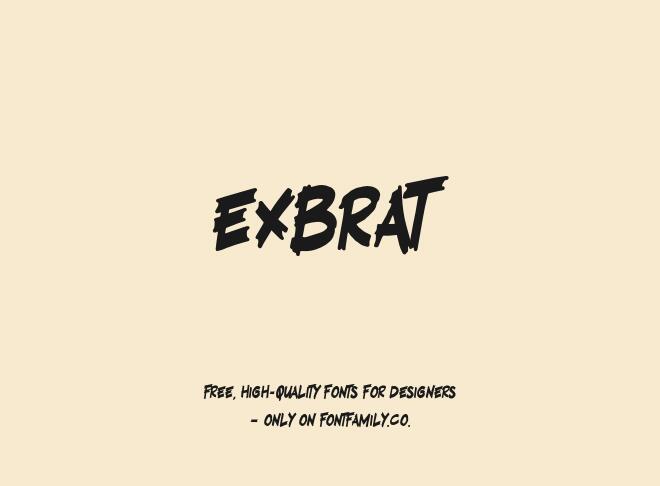
Exbrat Font
Exbrat Font is a modern, bold, and decorative typeface with a flair for the dramatic. Its unique character design sets it apart, making it an ideal choice for attention-grabbing headlines and vibrant displays. The font is reminiscent of classic bold typefaces, yet it has a contemporary twist that makes it stand out. With its strong personality, the Exbrat Font can add a distinctive touch to any design project, from logos and branding to advertising and editorial design. The font is easy to read, making it versatile for both print and digital media. Its expressive nature makes it a great choice for designers looking to make a bold statement. With its free personal use license, it's an accessible choice for personal projects or portfolio showcases.